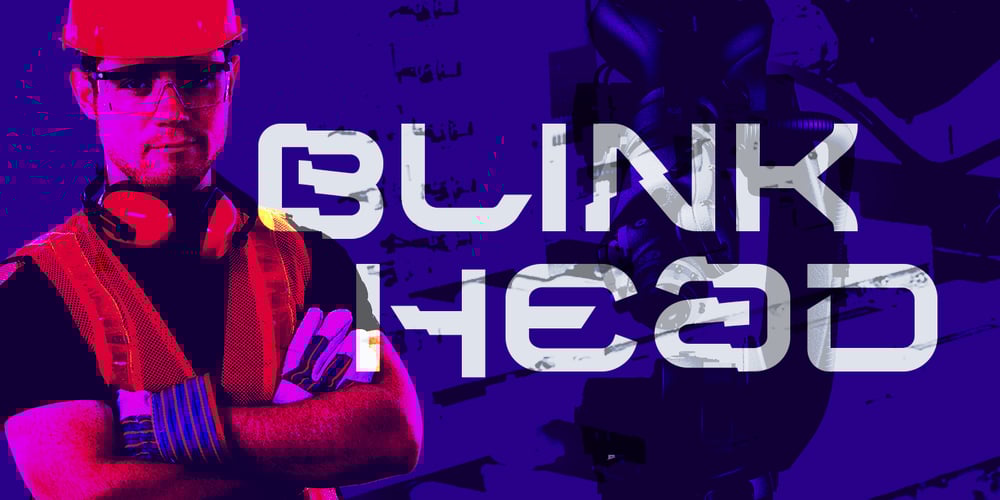
BlinkHead Font Family was designed by Bogdan Balatchi and published by DePlictis Types. BlinkHead contains 3 styles and family package options. BlinkHead is a powerfull block typeface inspired by industrial revolution and machineries. It comes in three styles for the moment with possibility to be added more later. It has a dynamic, curved letter ending that makes it perfect for some modern logo designs purpose and even powerful headlines. The folded style comes as an option to change some letters in plain text for more dynamic appeal.